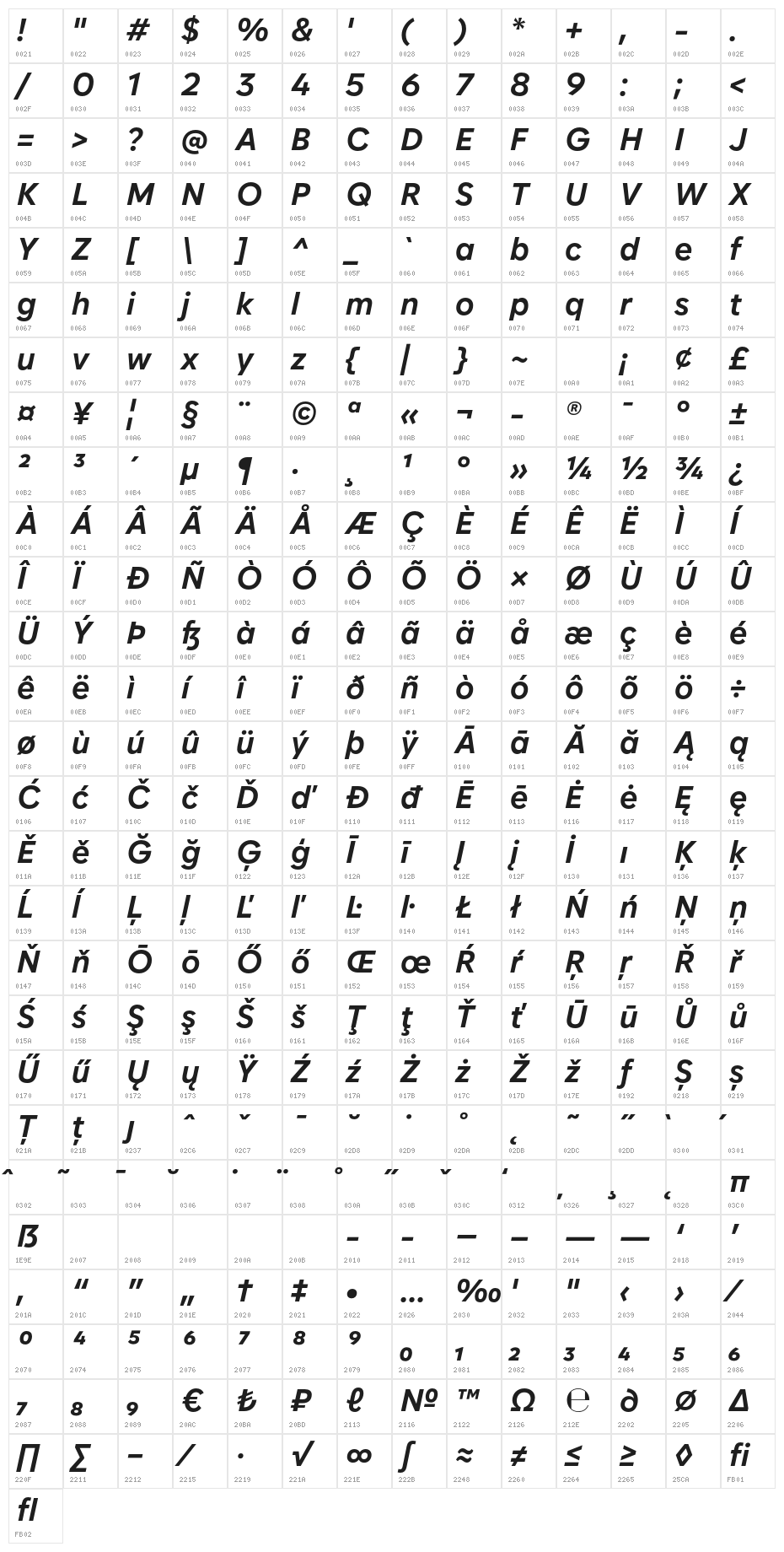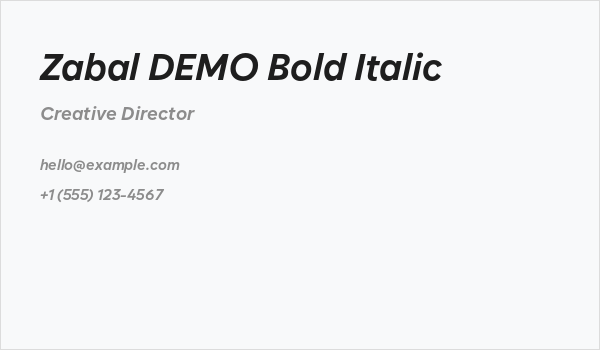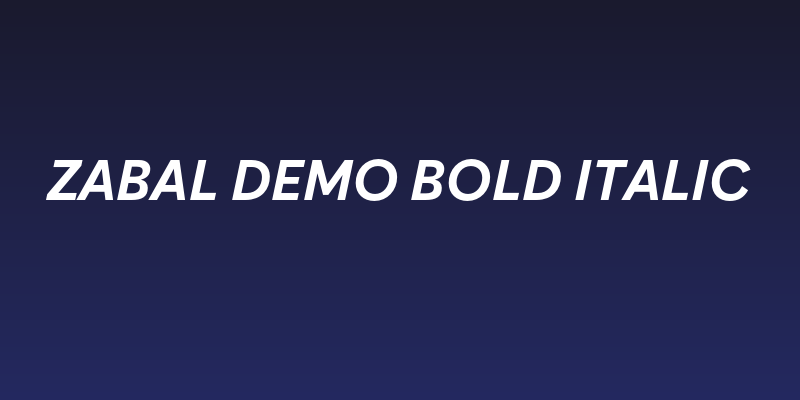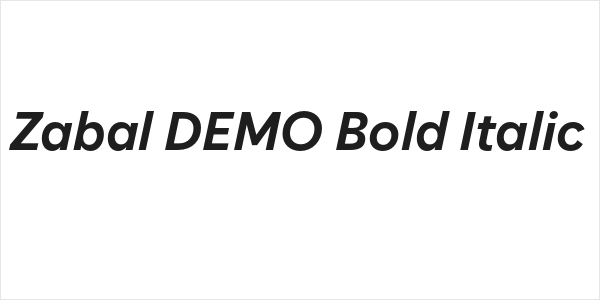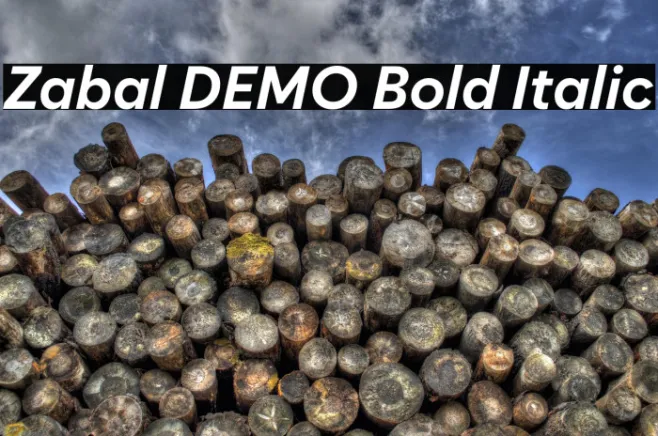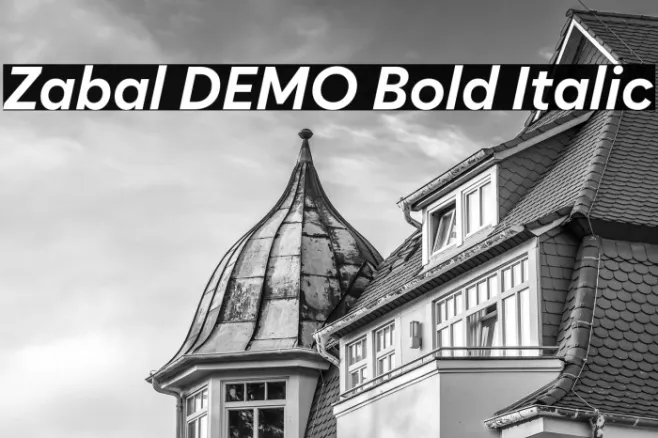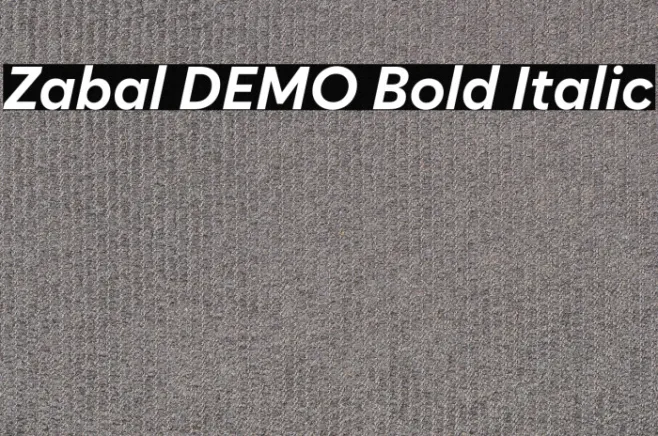
Zabal DEMO Bold Italic Font
Zabal DEMO Bold Italic Description
This font features a bold and italic style, characterized by its strong and dynamic appearance. The letters are slightly slanted, giving a sense of movement and energy. The strokes are thick and consistent, providing a robust and confident look. The font maintains a modern aesthetic with clean lines and smooth curves, making it versatile for various design applications. The uppercase and lowercase letters are well-proportioned, and the numerals are clear and easy to read. Special characters are included, enhancing its functionality for diverse uses.
| Proposed Projects | Ideal for branding, advertising, headlines, and digital media projects that require a strong and modern typeface. |